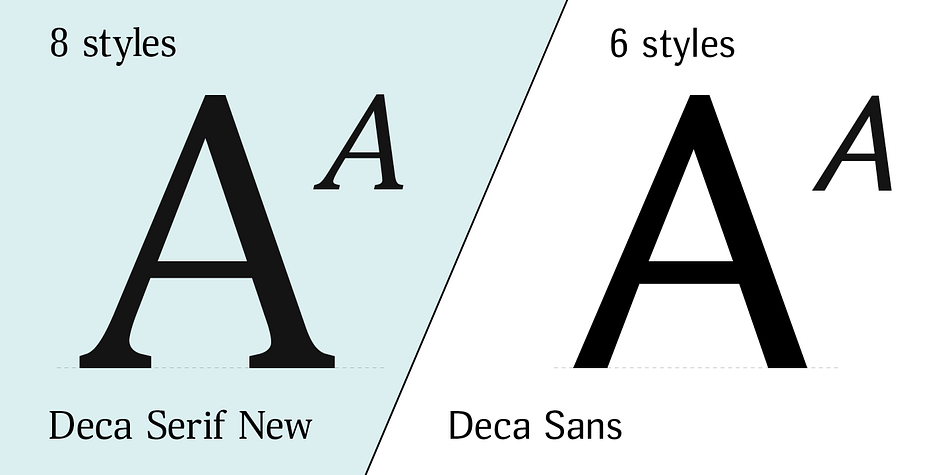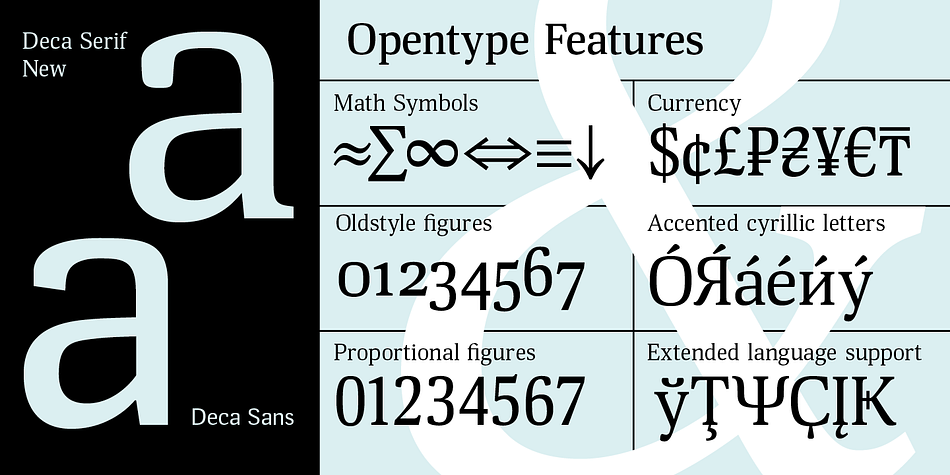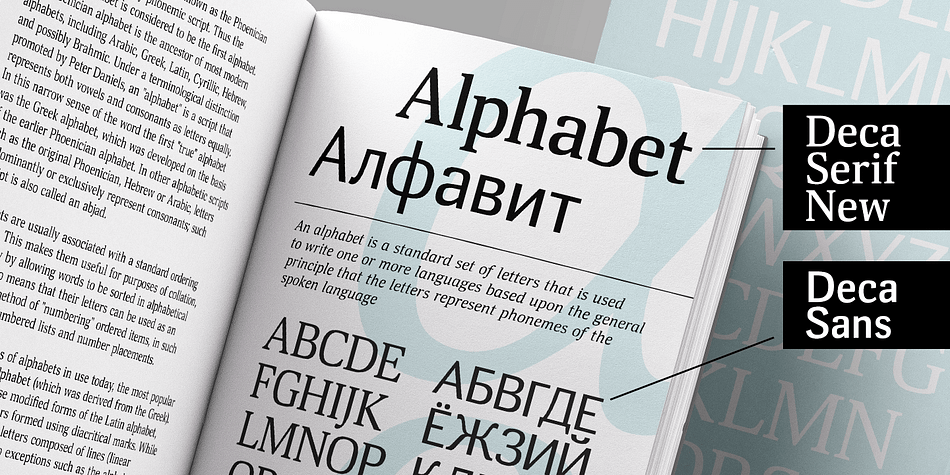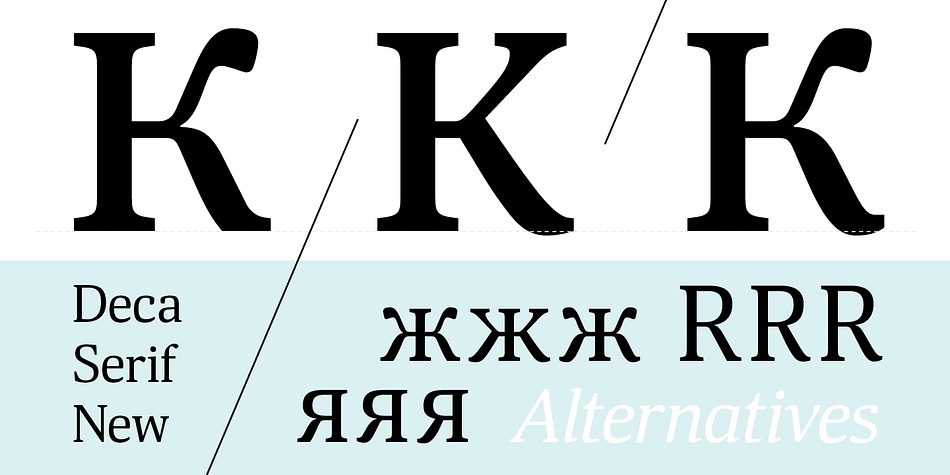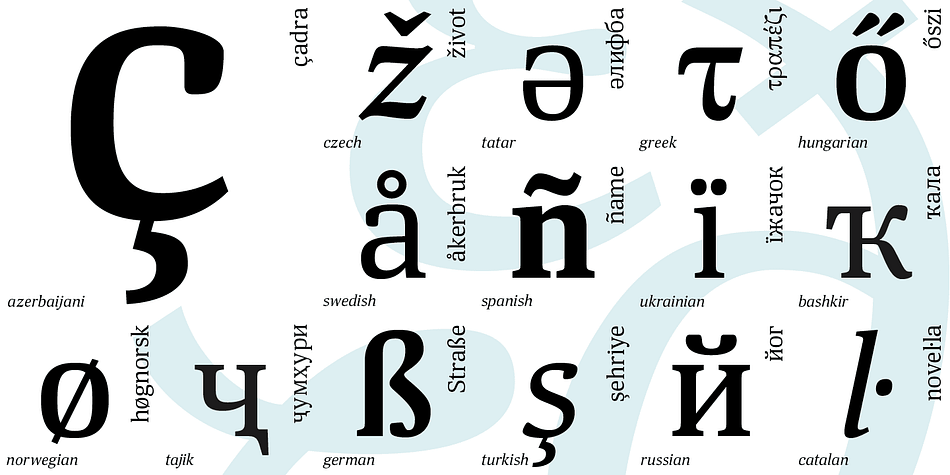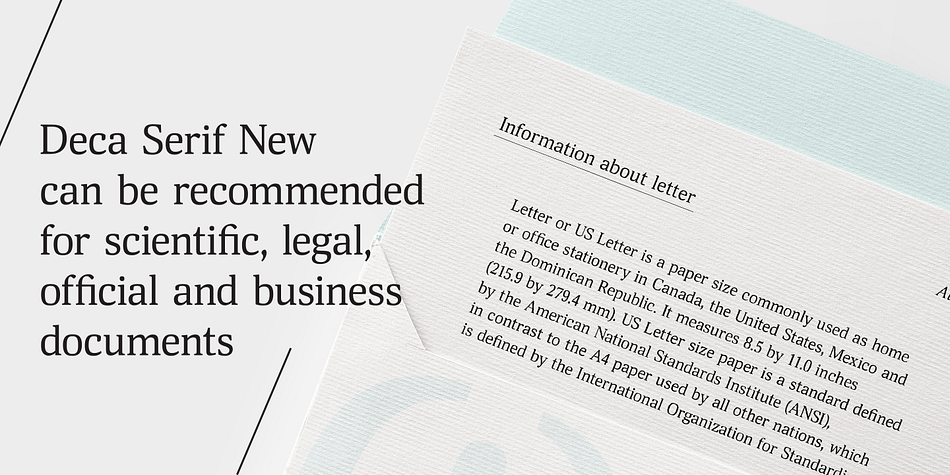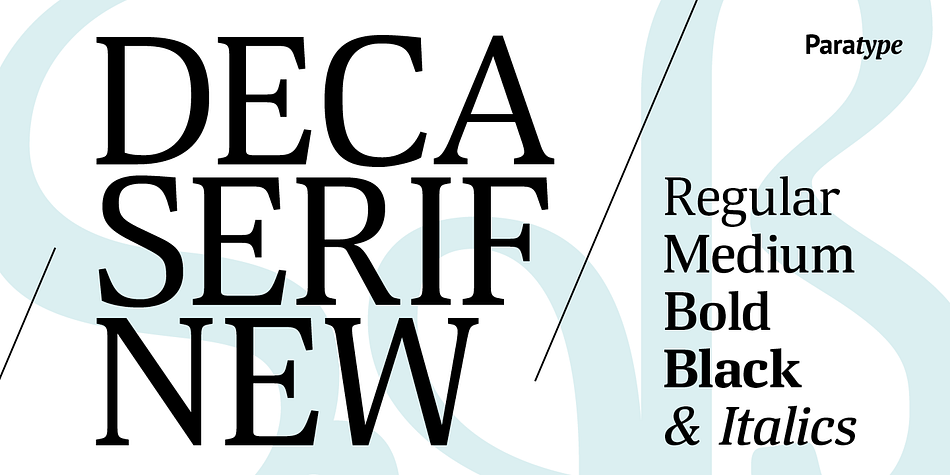
Designed by Natalia Vasilyeva, Deca Serif New is a serif font family. This typeface has eight styles and was published by ParaType.
Deca Serif New is a significantly revised version of Deca Serif.
It is a pure low contrast serif face with squarish oval shapes and quite narrow proportions. The typeface is nicely readable in small sizes and can be recommended for scientific, legal, official and business documents.
Deca Serif New’s distinctions from the original Deca Serif are: slight corrections of the letterforms, extended character set (now including Greek and Extended Cyrillic) and a number of styles. Now there are 8 faces: four upright styles of different weight and corresponding italics.
Deca Serif New as well as Deca Serif is an ideal companion face for Deca Sans.
The typeface was designed by Natalia Vasilyeva and released by Paratype in 2017.